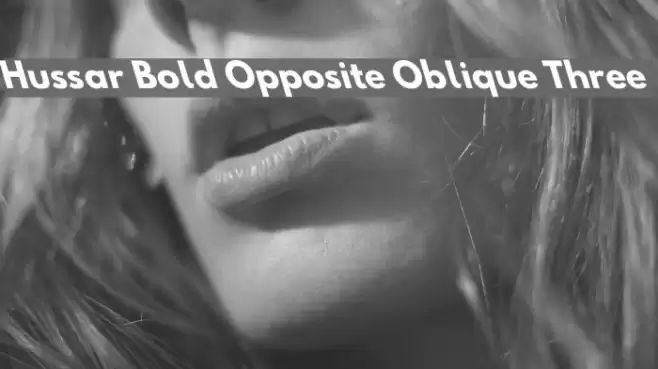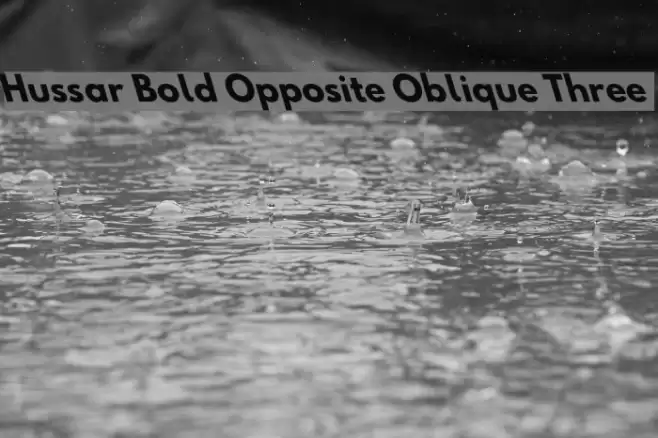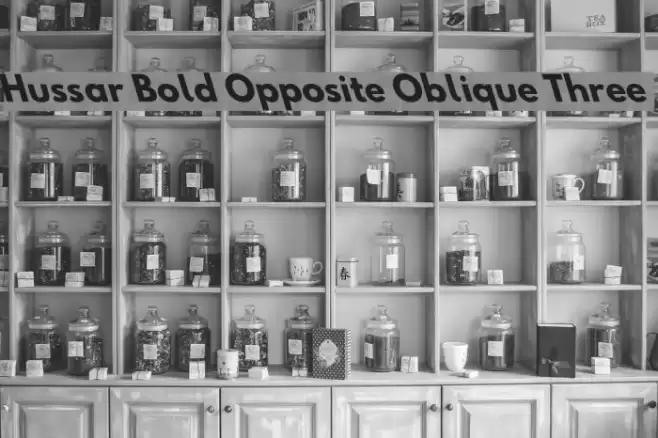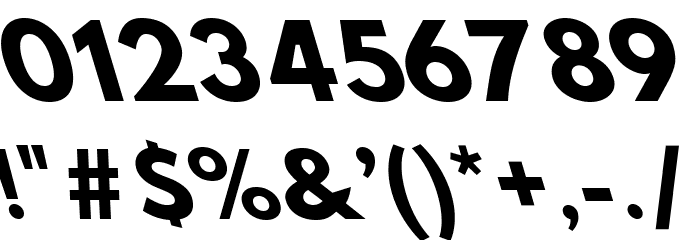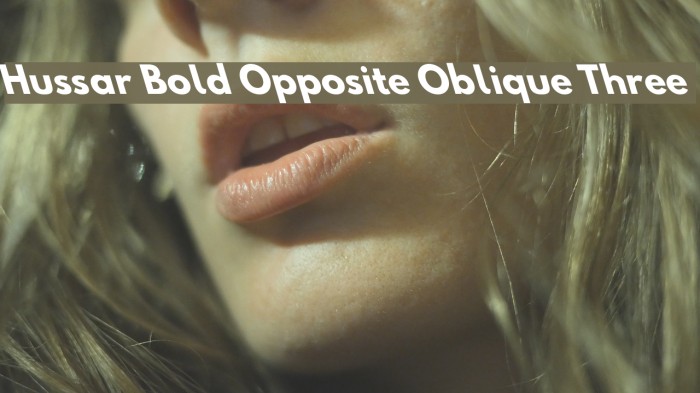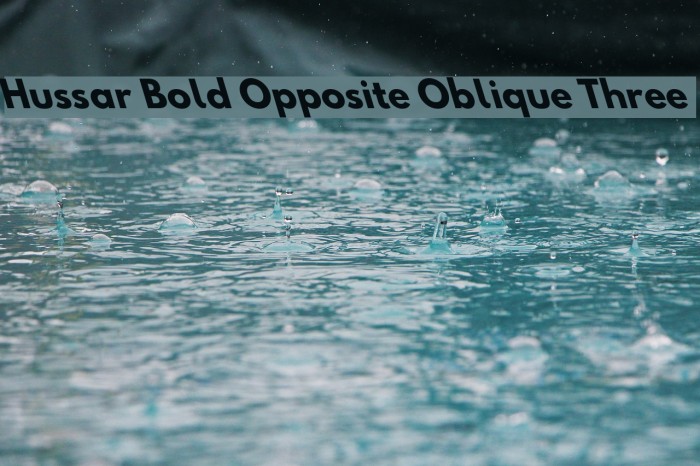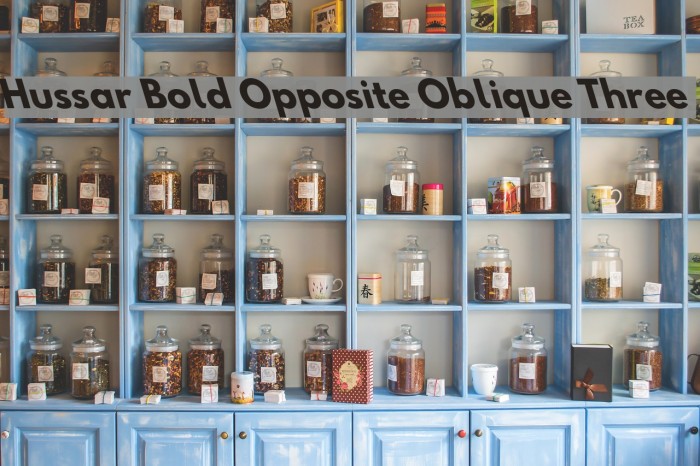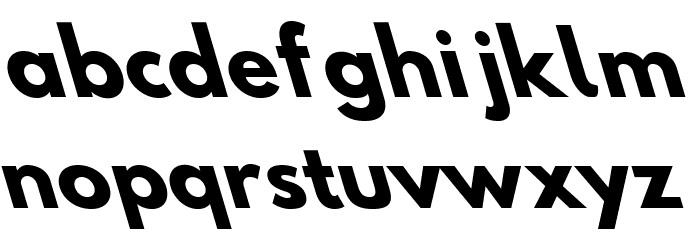
Hussar Bold Opposite Oblique Three
This font features a bold, oblique style with a distinctive slant to the left, creating a dynamic and modern appearance. The characters are robust and well-defined, with a consistent stroke width that enhances readability. The uppercase letters are strong and commanding, while the lowercase letters maintain a harmonious balance. The numerals are clear and easily distinguishable, making them suitable for various applications. Special characters are included, providing versatility for different design needs. The overall design is sleek and contemporary, making it ideal for attention-grabbing headlines and impactful visual statements.
A bold, left-slanted oblique font with a modern and dynamic style.
- Proposed Projects: Ideal for branding, advertising, posters, and any project requiring a bold and modern typeface.
- Use Case: Headlines, Logos, Posters